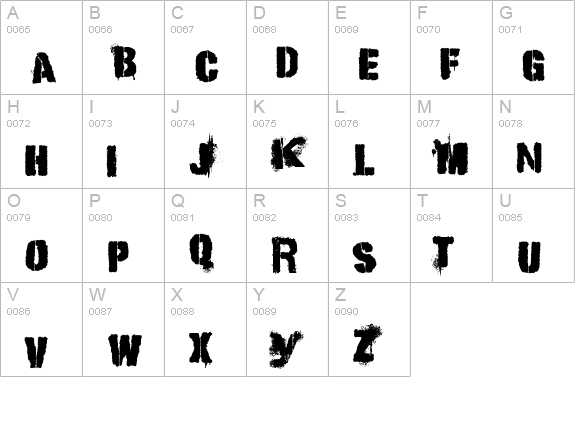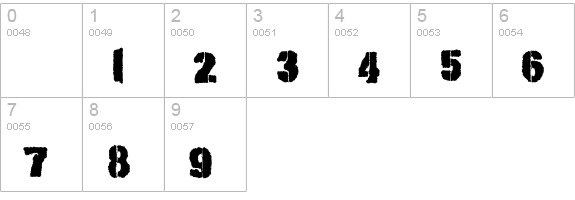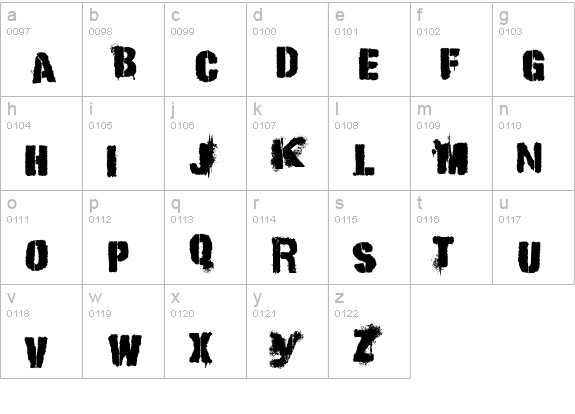
Introducing Punk Kid font, a rebellious and edgy typeface that perfectly embodies the bold spirit of punk culture. Designed to make a statement, this font is ideal for creating eye-catching headlines, posters, album covers, and any project that requires a touch of attitude. With its sharp and jagged letterforms, Punk Kid font adds a raw and energetic aesthetic to your designs. Each character is uniquely crafted with an anarchic flair, capturing the essence of the punk movement and infusing your text with a rebellious edge. But that's not all - Punk Kid font is not only visually striking, but it's also incredibly versatile. Whether you're designing for a music festival, a fashion brand, or a gritty urban campaign, this font will effortlessly convey your message with its distinct character. And the best part? Punk Kid font is absolutely free! That's right, you can freely download this font at FontsMarket.com and start unleashing your creativity without any cost. We believe that great design should be accessible to everyone, and that's why we're offering this font as a gift to the design community. So, if you're ready to add a touch of punk rock to your projects, don't miss out on the opportunity to get Punk Kid font. Download it now at FontsMarket.com and let your designs scream with rebellious style. Get your hands on this free font and show the world that you're not afraid to break the rules!